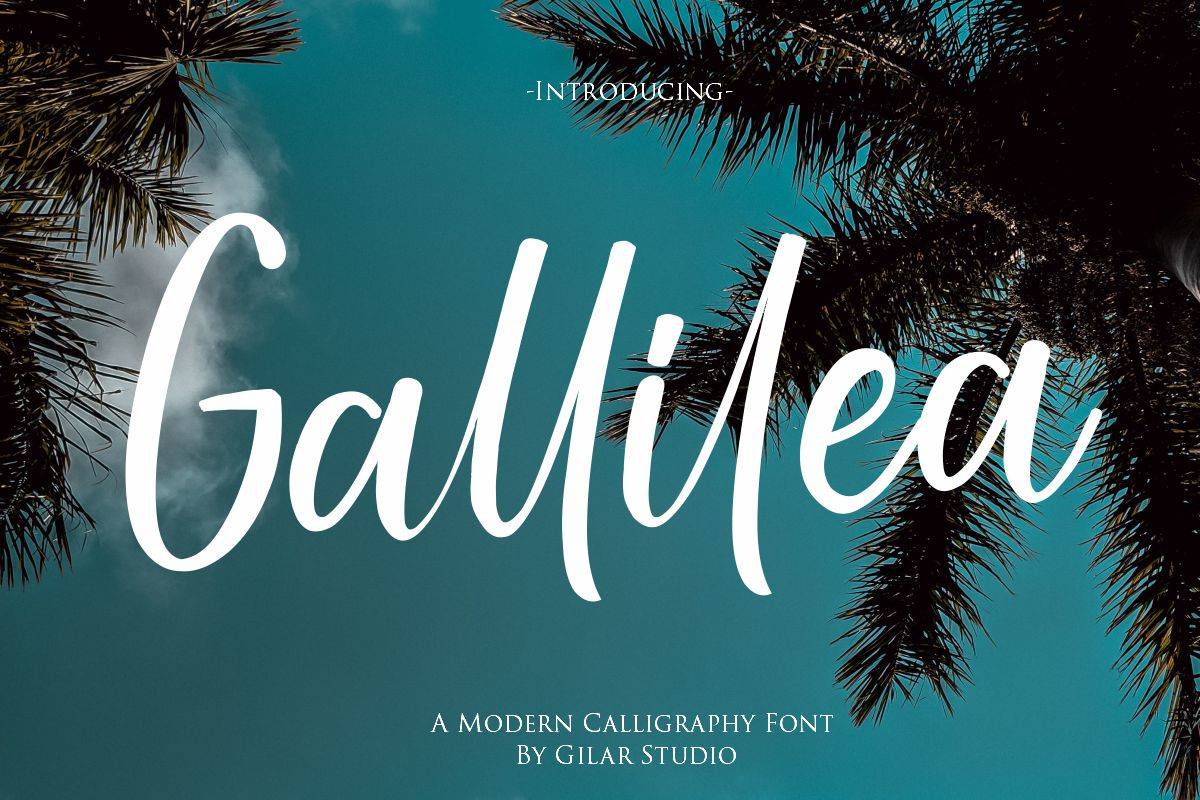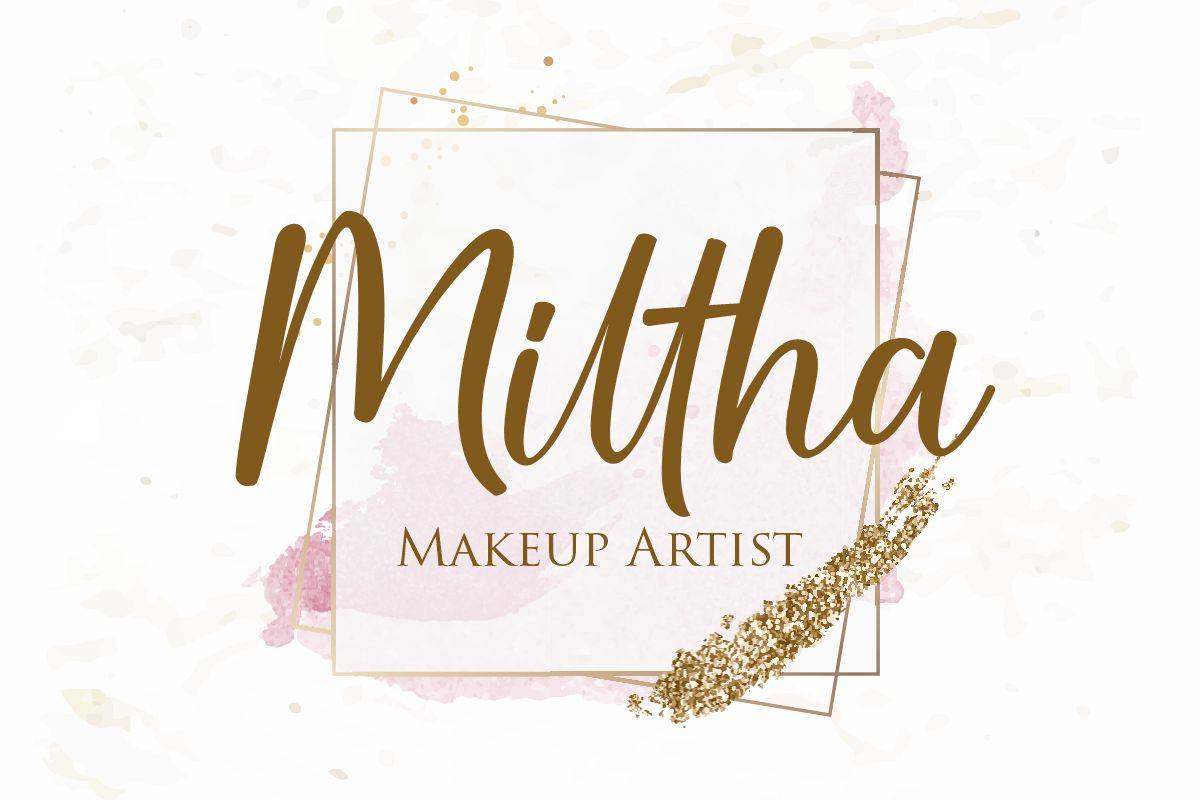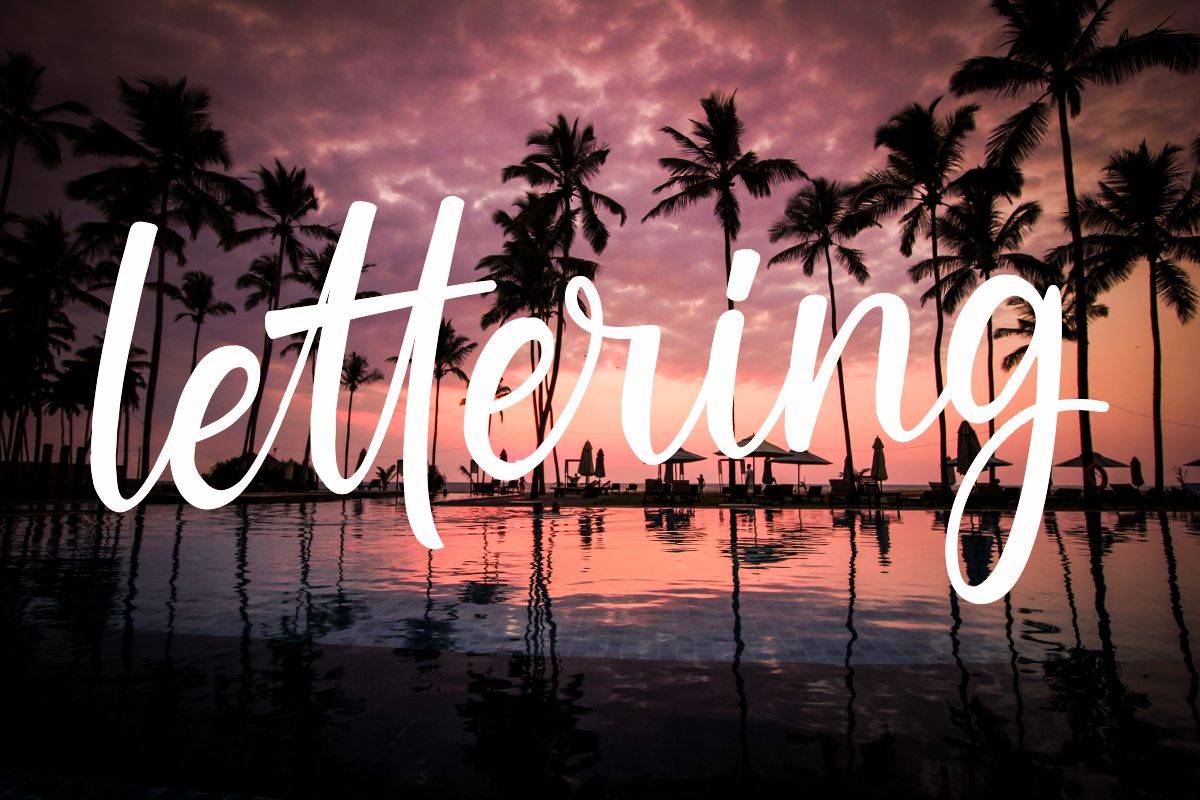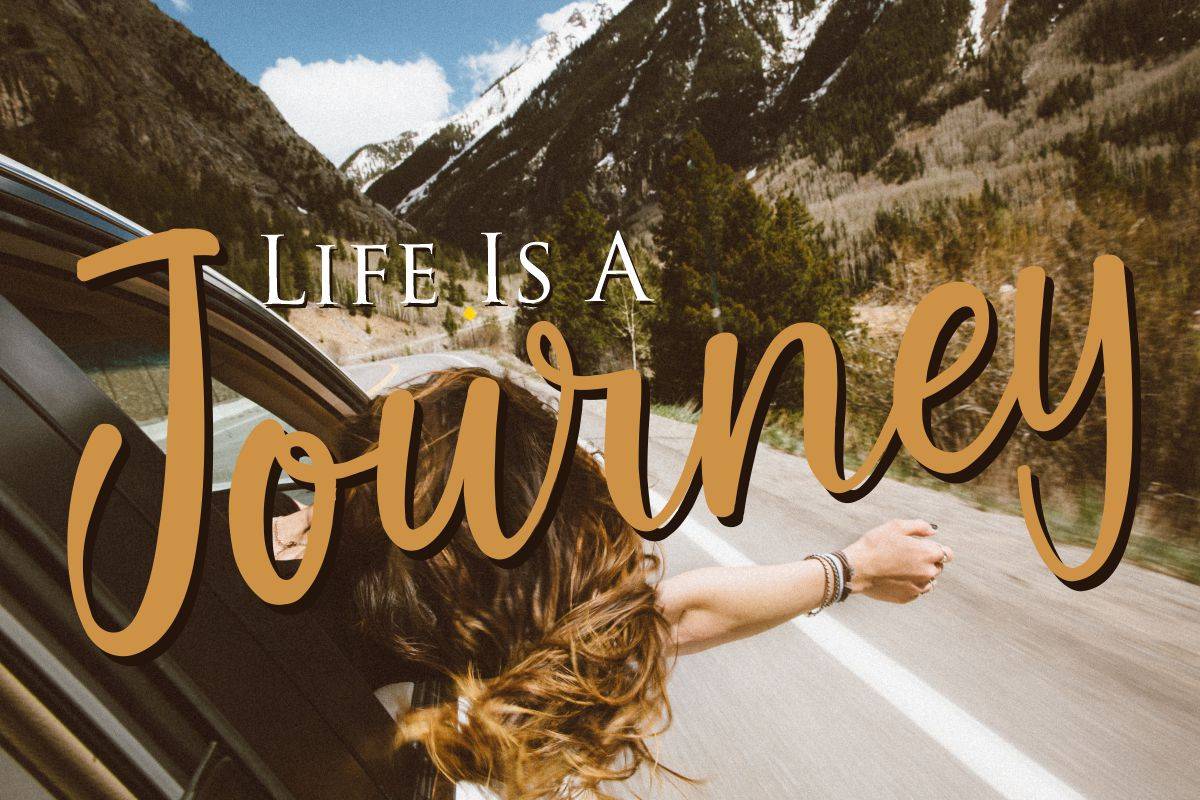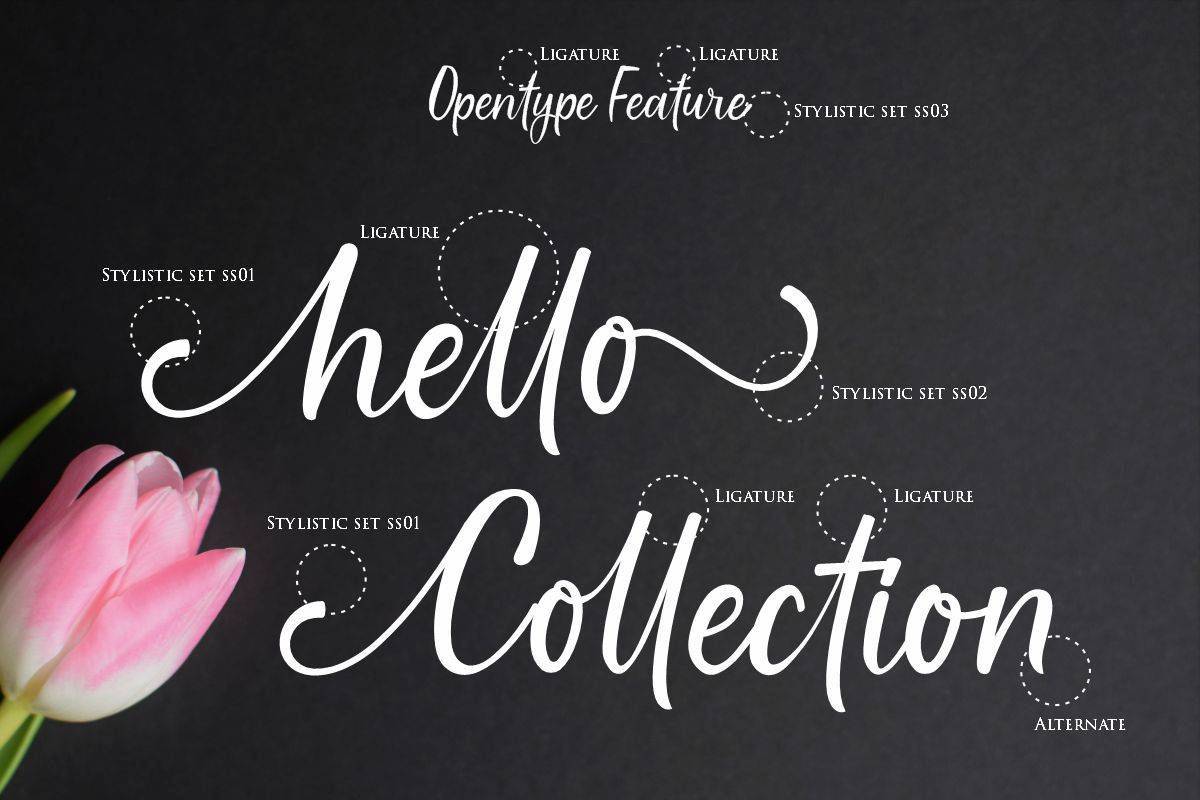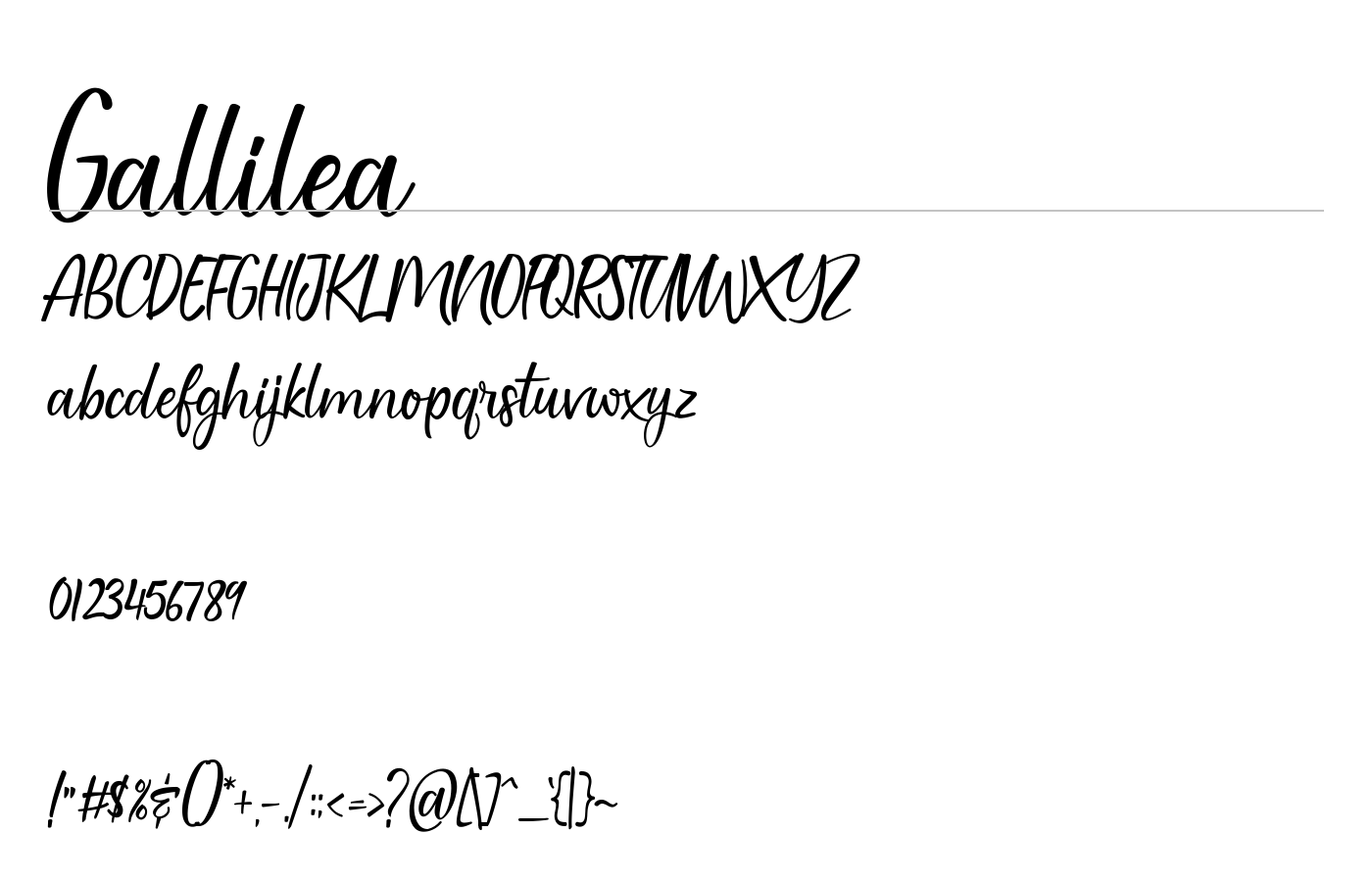
Gallillea is a stylish, modern script font with a light weight and slender, elegant letterforms that give it a handwritten, casual feel. Its smooth, flowing strokes and moderate contrast make it perfect for adding a personal, approachable touch to branding, invitations, and headlines. This font works well in creative and feminine designs where a fresh, lively, yet refined look is desired.
Gallillea Font
About Gallillea Font
| Font family | Gallillea Font |
| Designer | Gilart Studio |